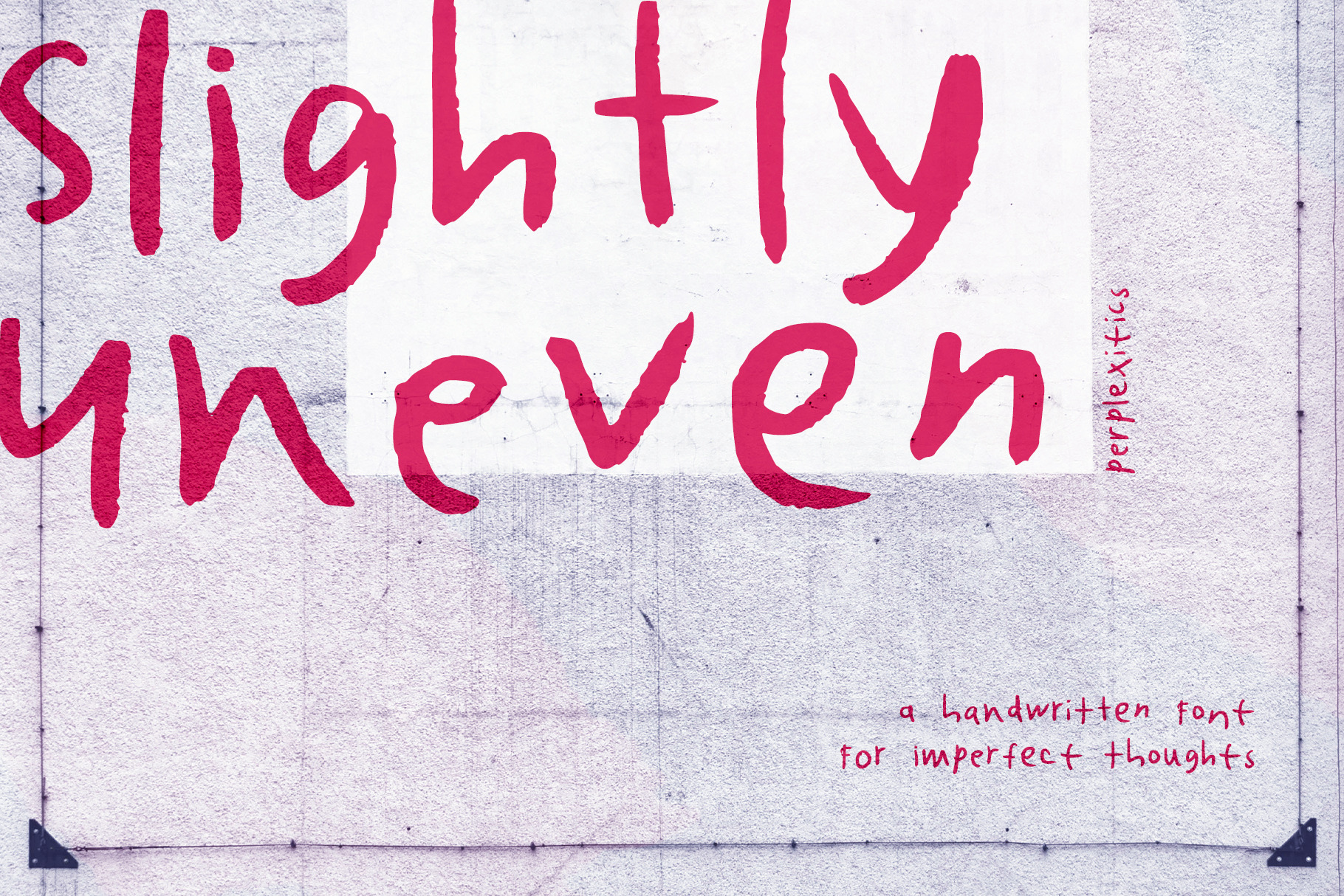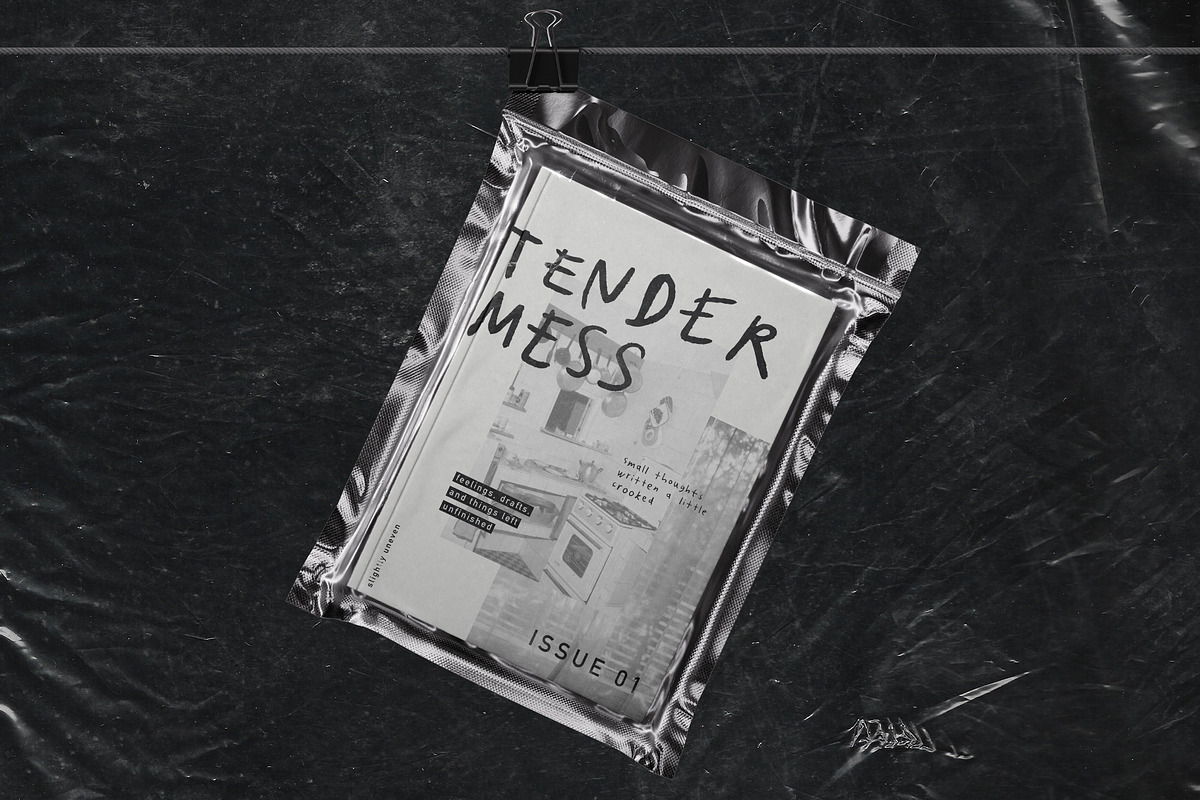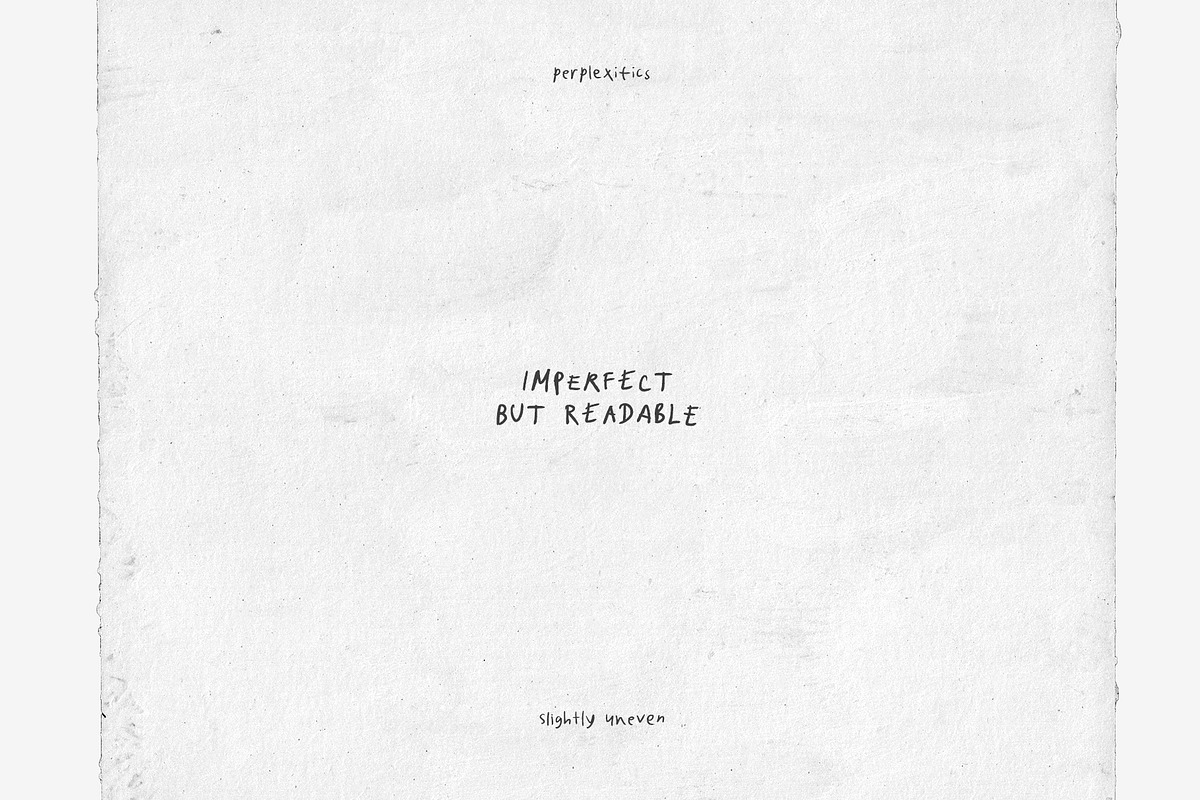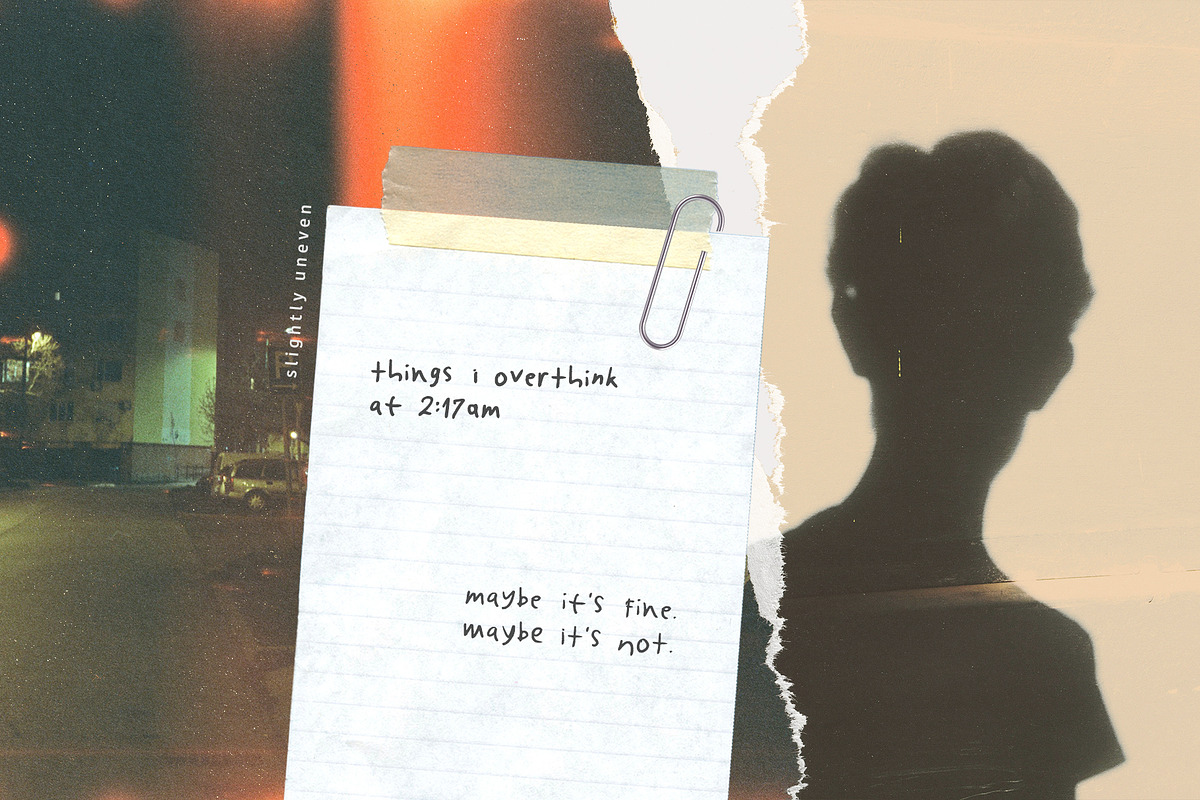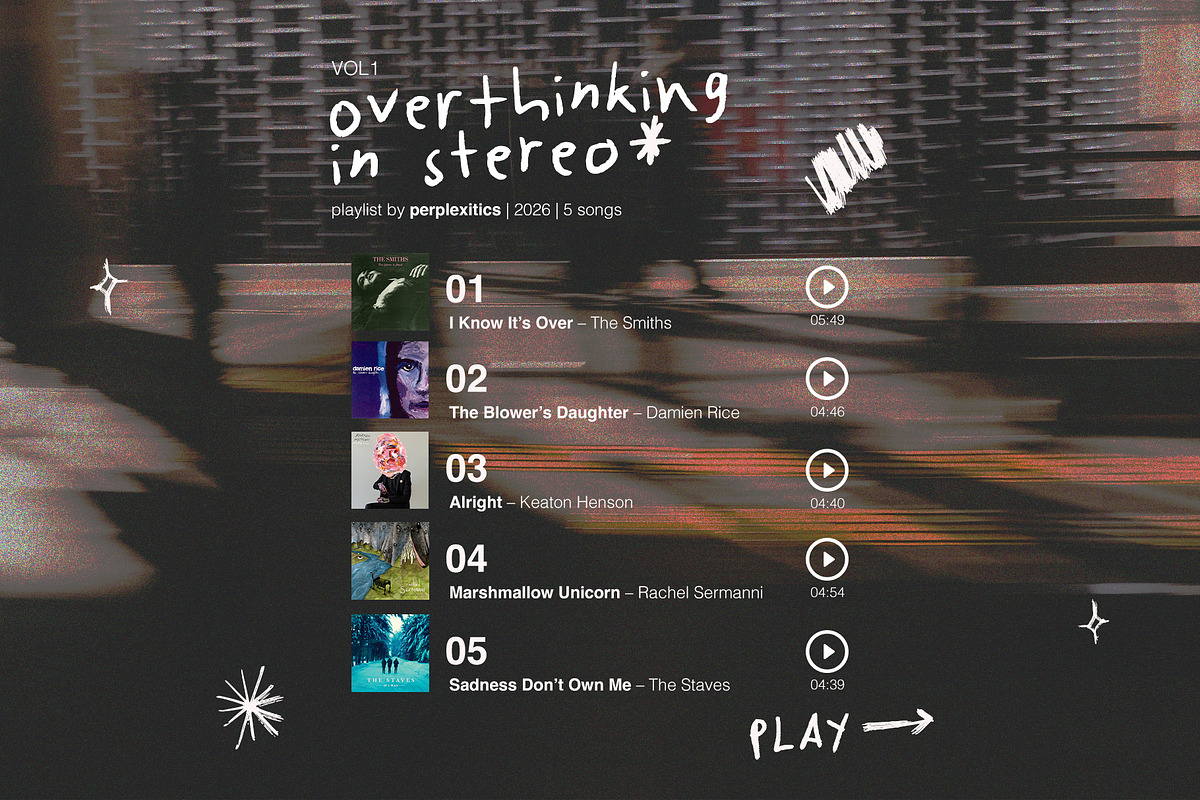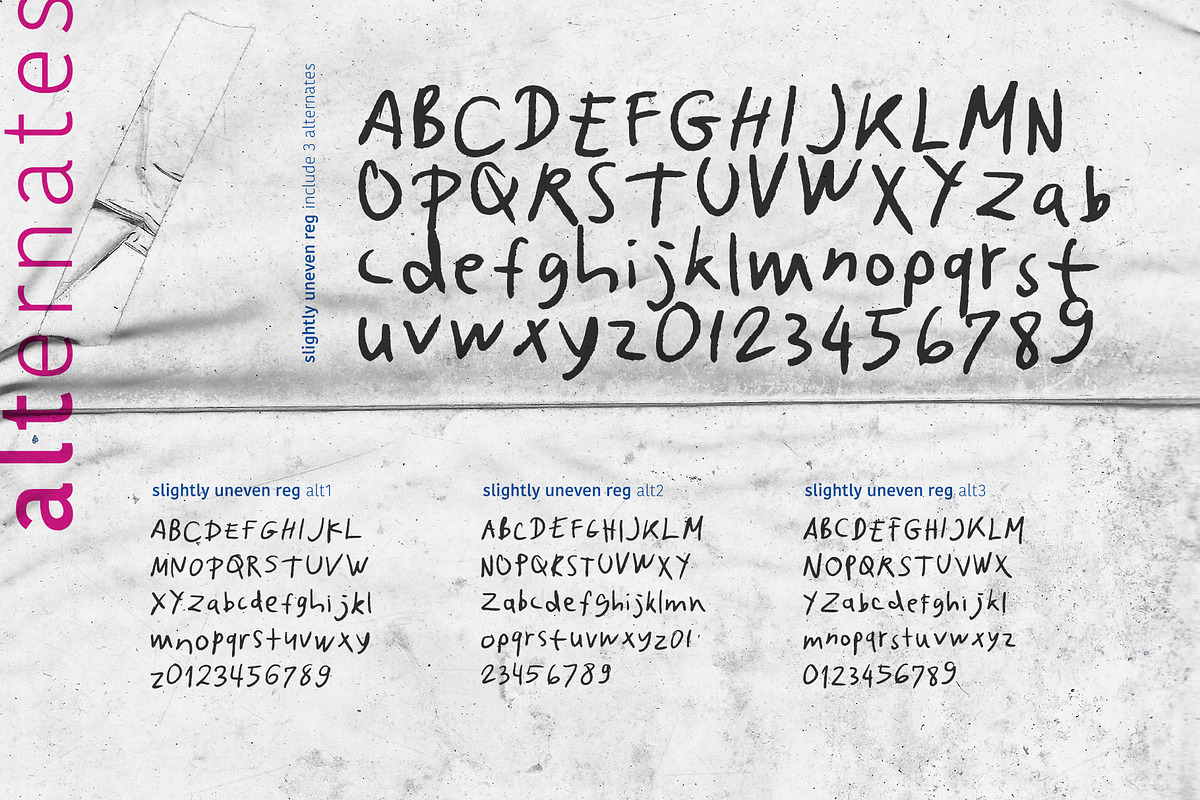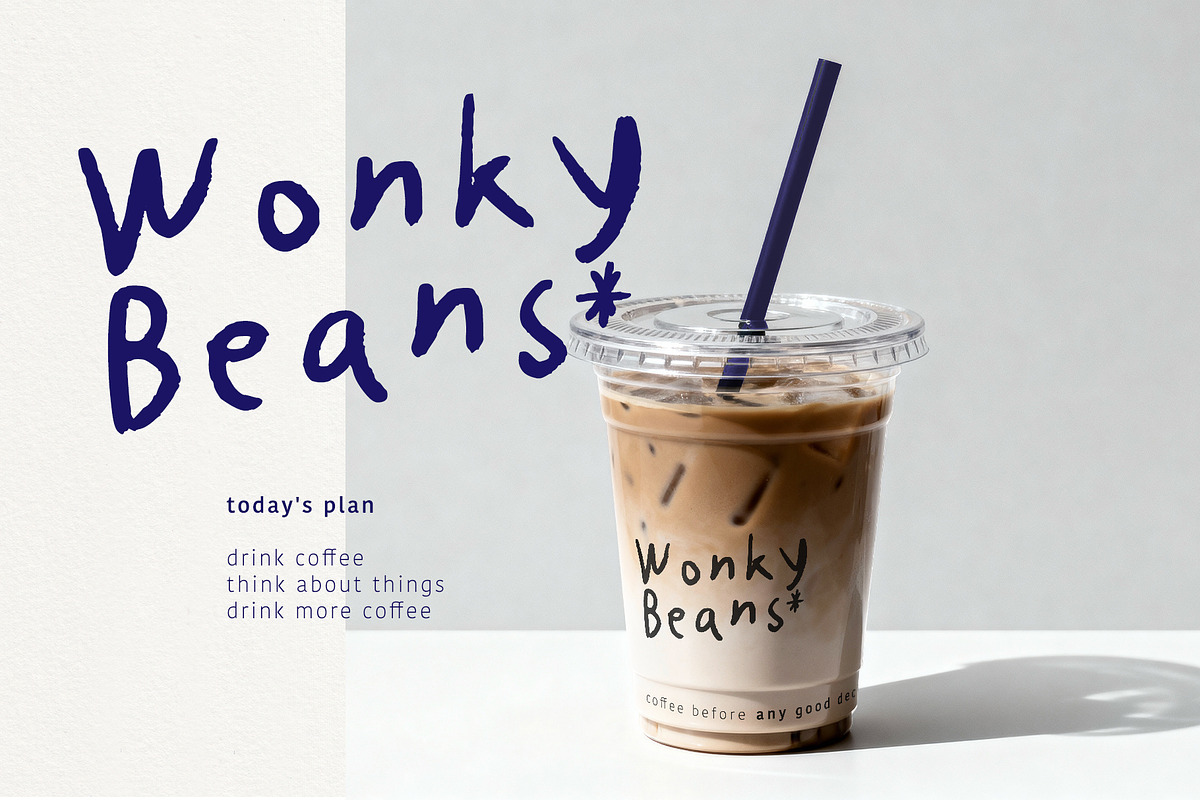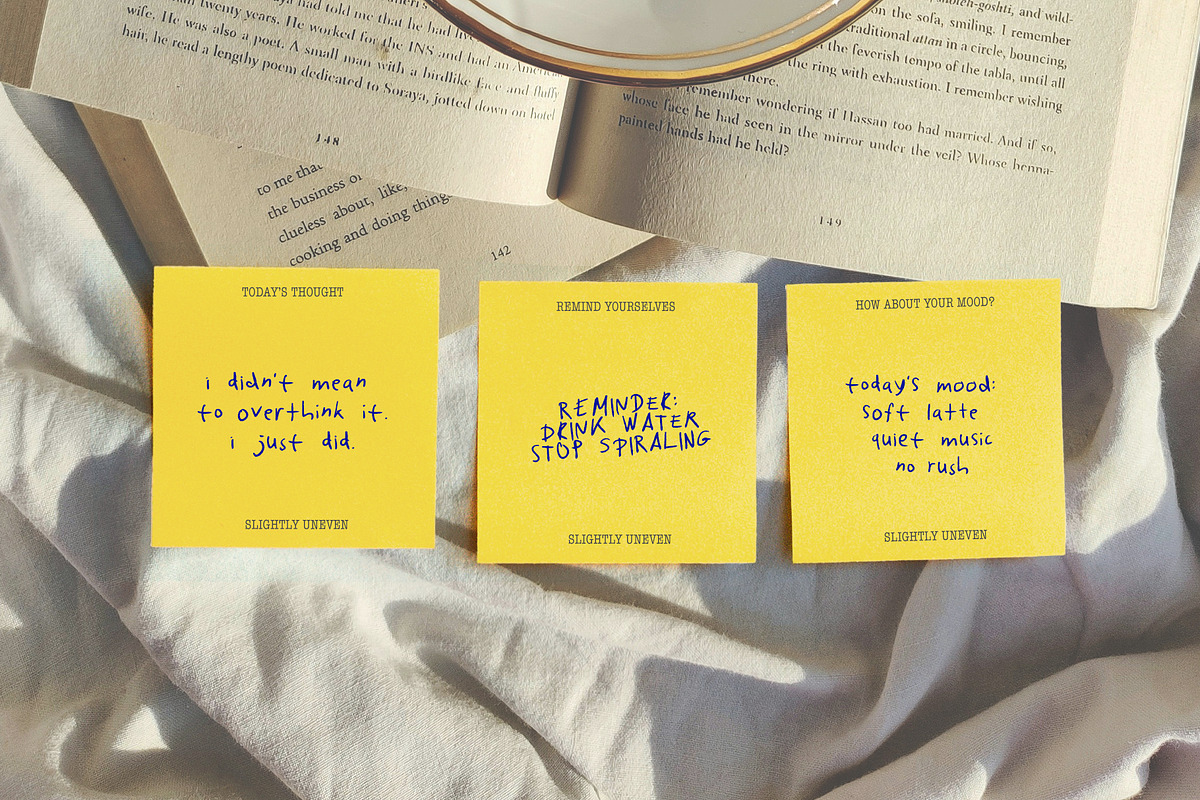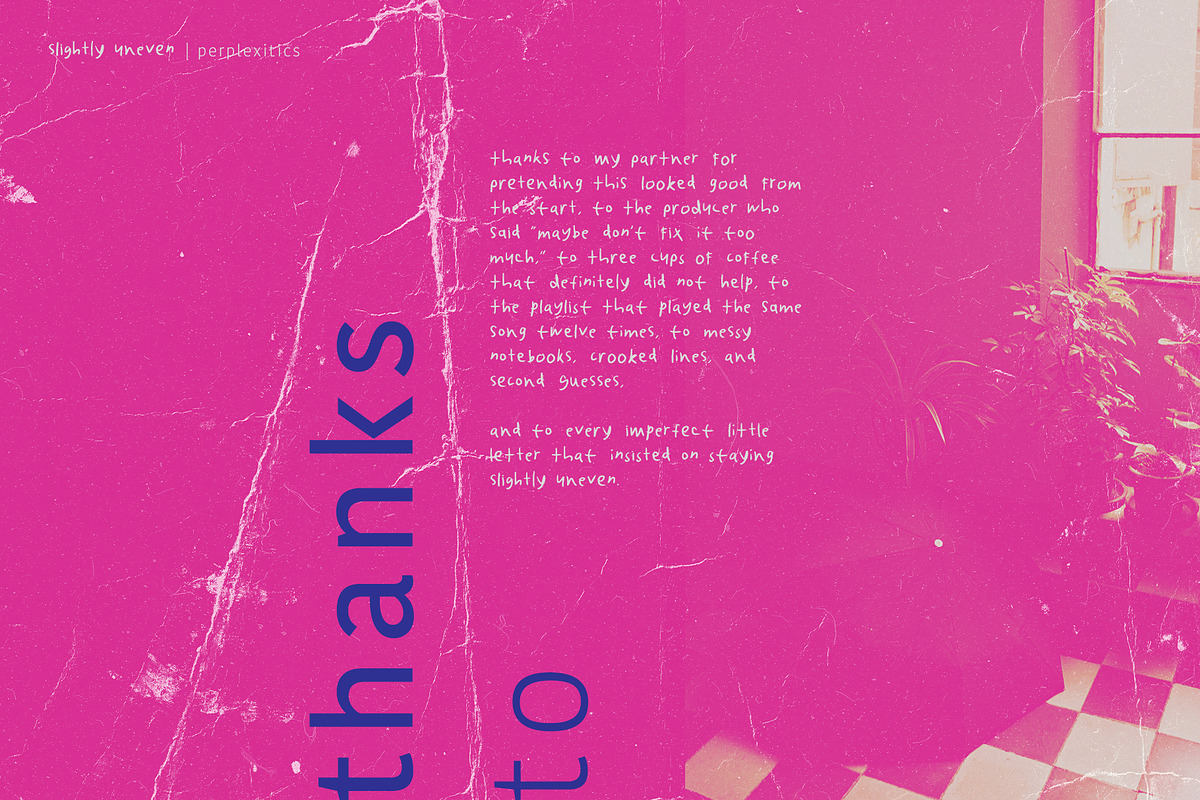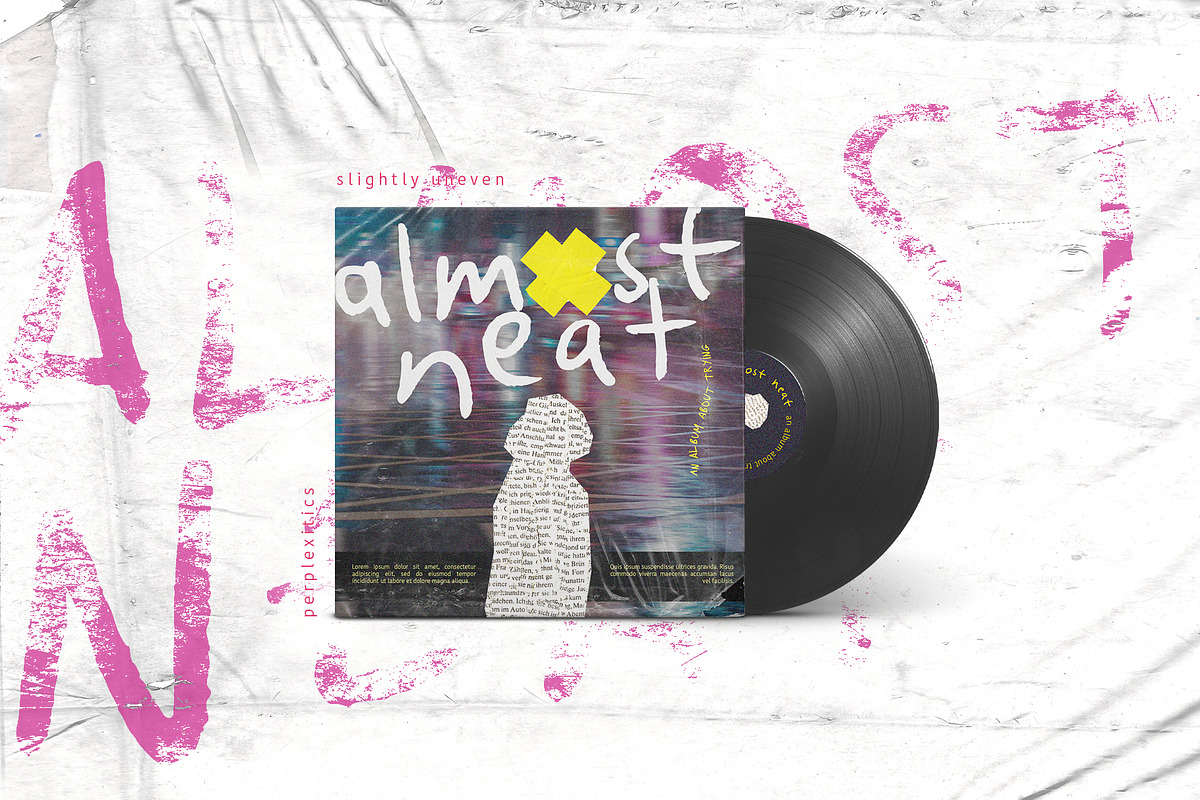
Slightly Uneven Handwritten Font
Slightly Uneven is a quirky handwritten font with a messy, imperfect charm. Designed to feel natural and human. Packed with everything you need, including uppercase and lowercase letters, numbers, and punctuation. Multilingual support.